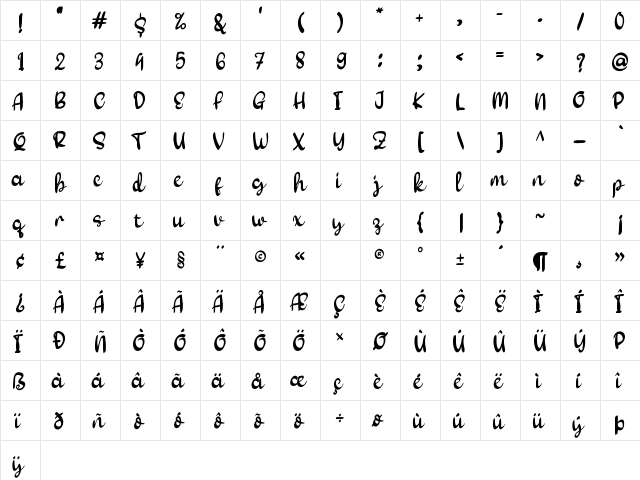
Renanty Regular
Design Context for Renanty Typeface
Renanty is a composed and adaptable typeface that performs quietly and consistently across a wide range of design contexts.